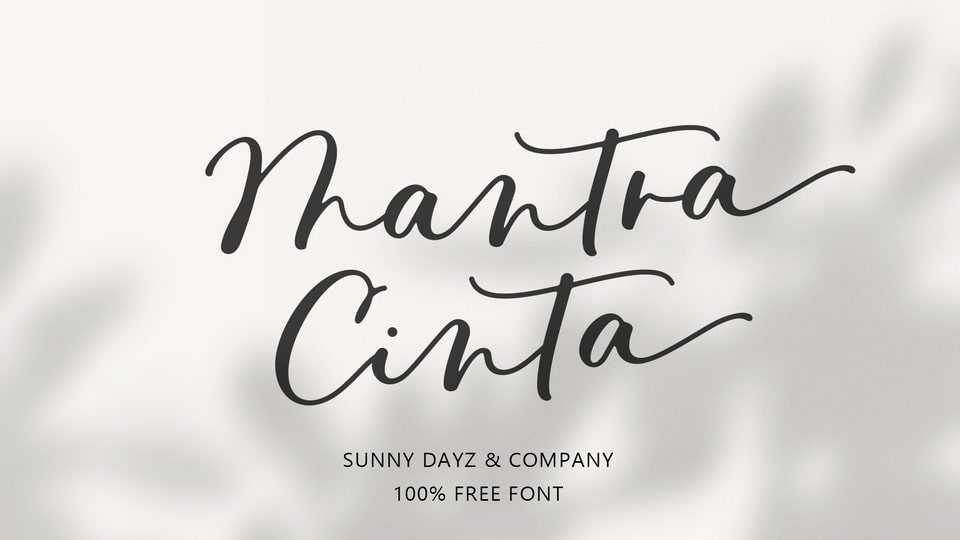
Download Mantra Cinta font, a smooth and flowing handwriting font that gracefully glides across the page with effortless elegance. The font is crafted with fluid strokes and gentle curves, capturing the organic rhythm and natural beauty of handwriting.